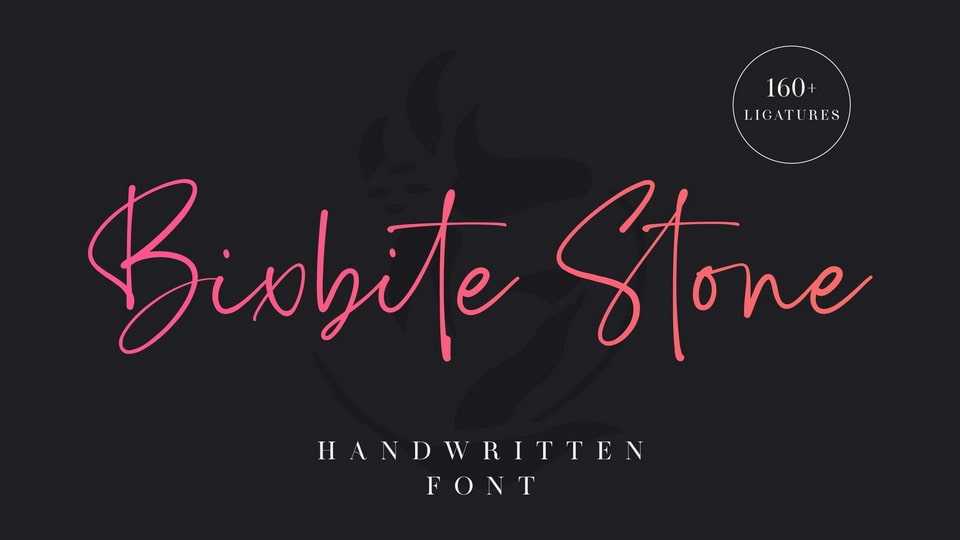
Download Bixbite Stone font, an elegant and flowing handwritten typeface. Every letter of Bixbite Stone has a unique and beautiful touch, which will make your design come alive!
Designer: Lemonthe